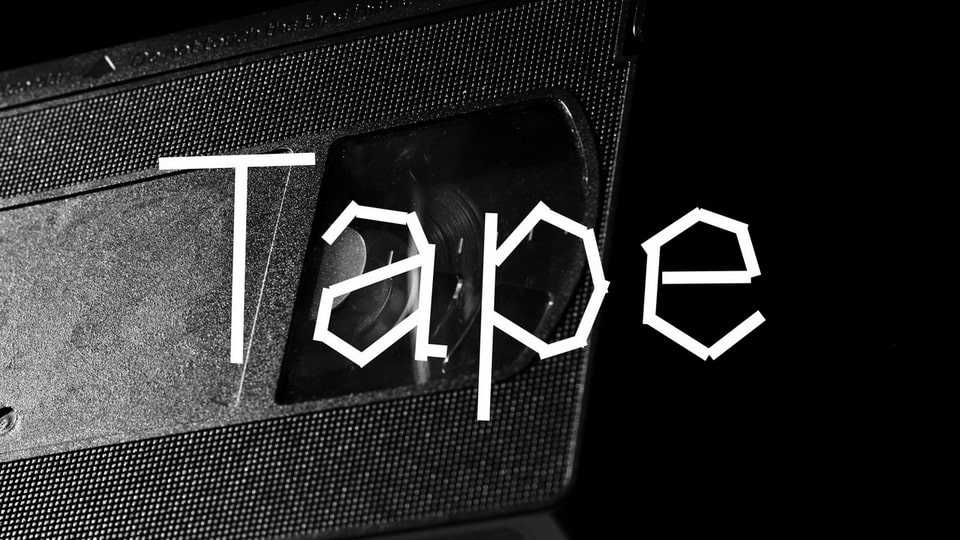
Download Tape font, an experimental typeface constructed entirely from straight, unconnected strokes — resembling fragments of scotch tape pieced together to form each glyph.